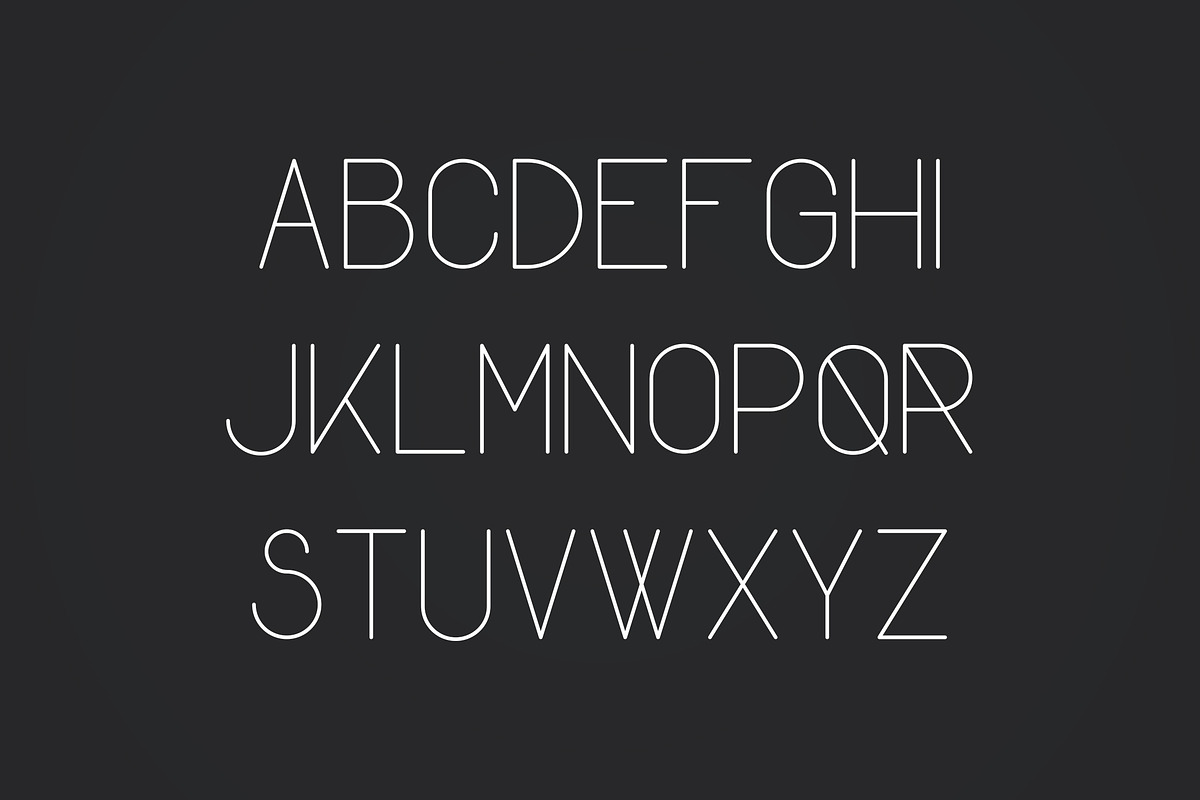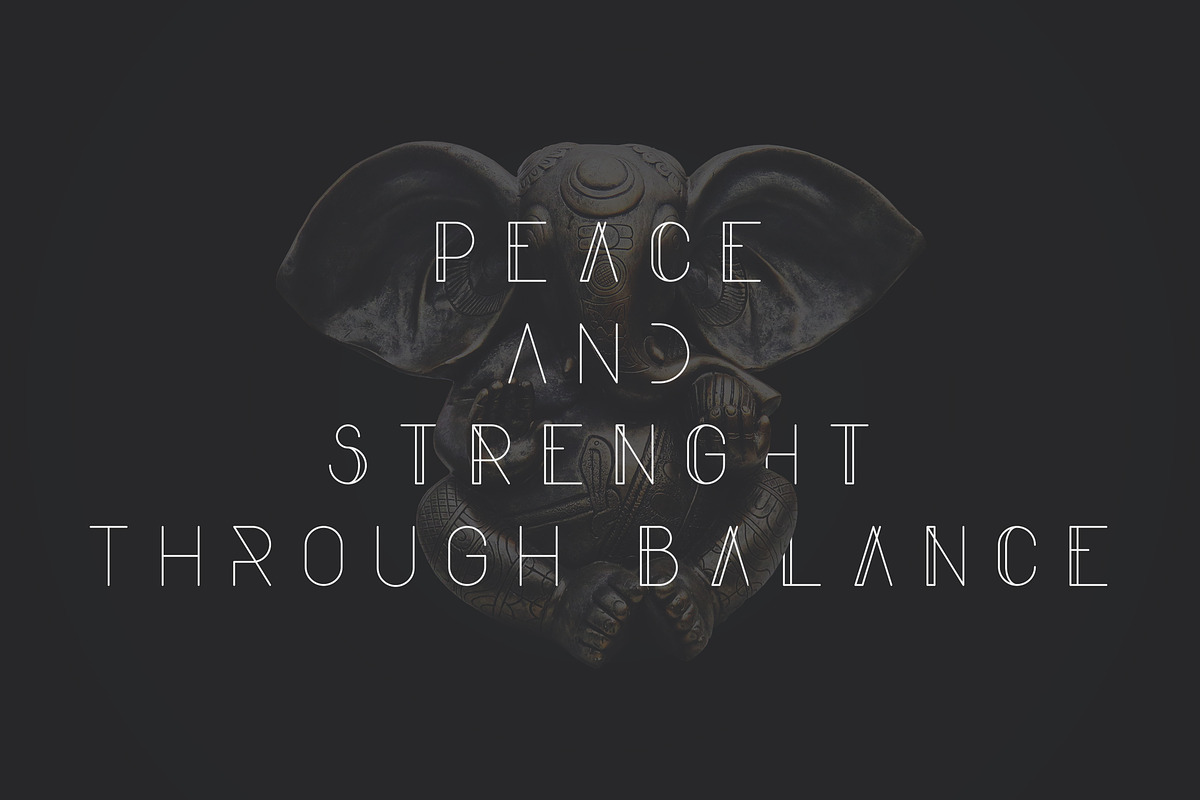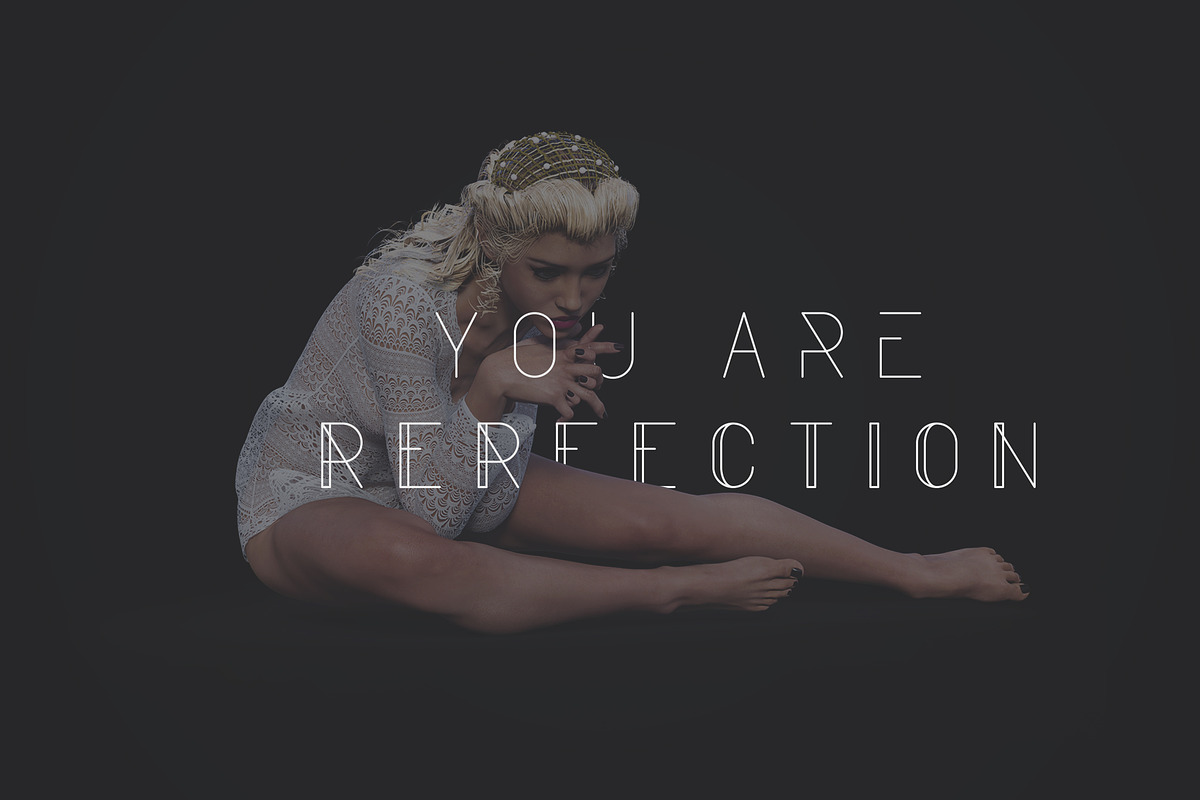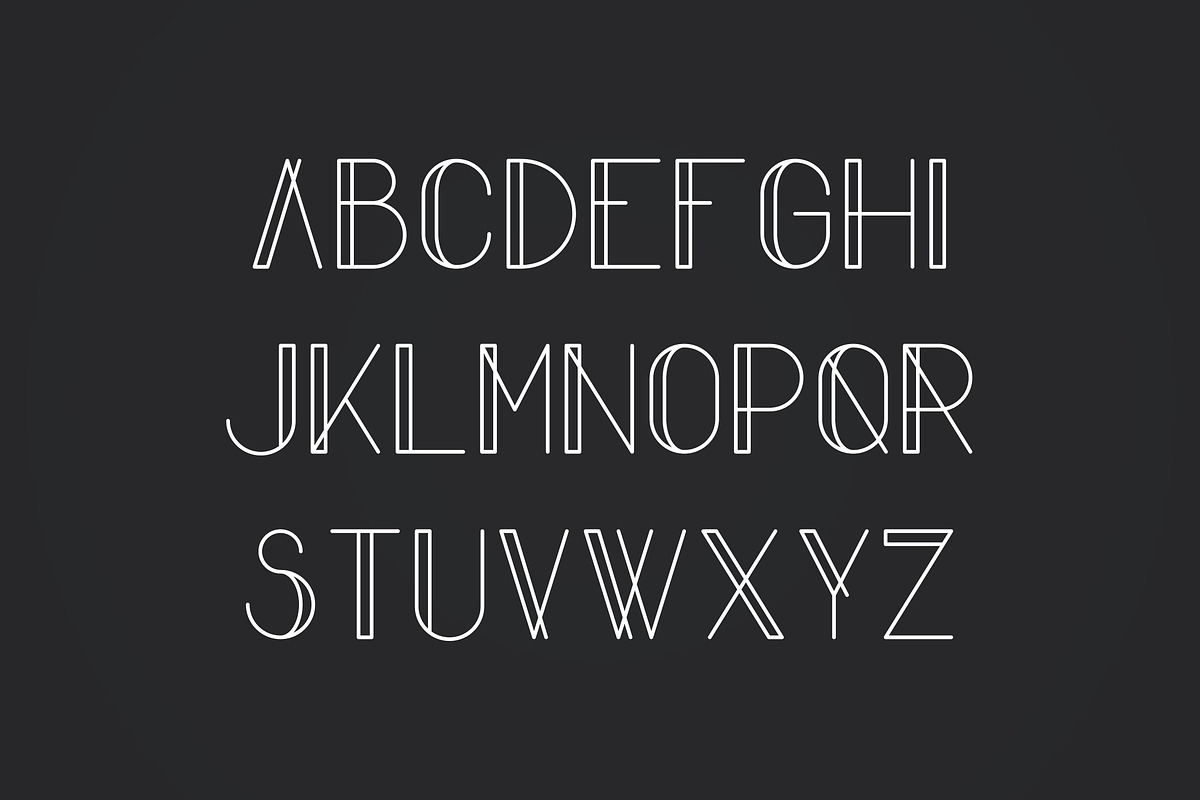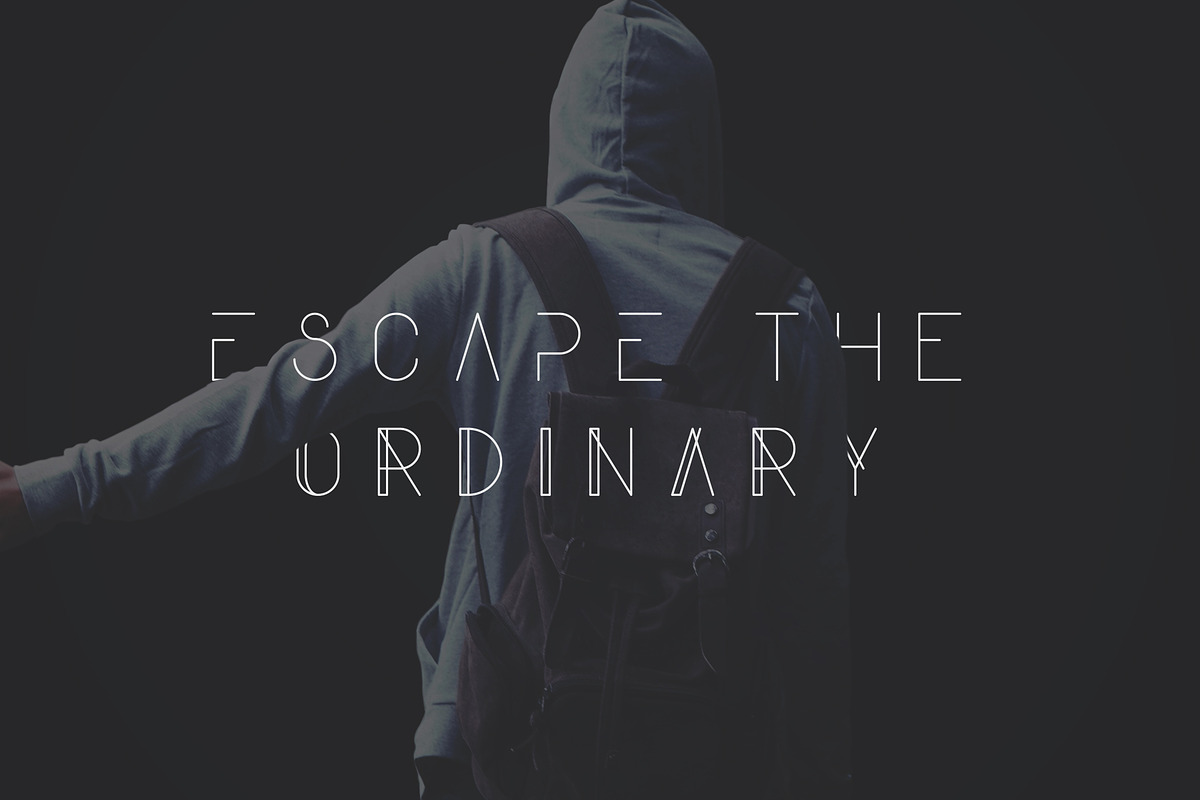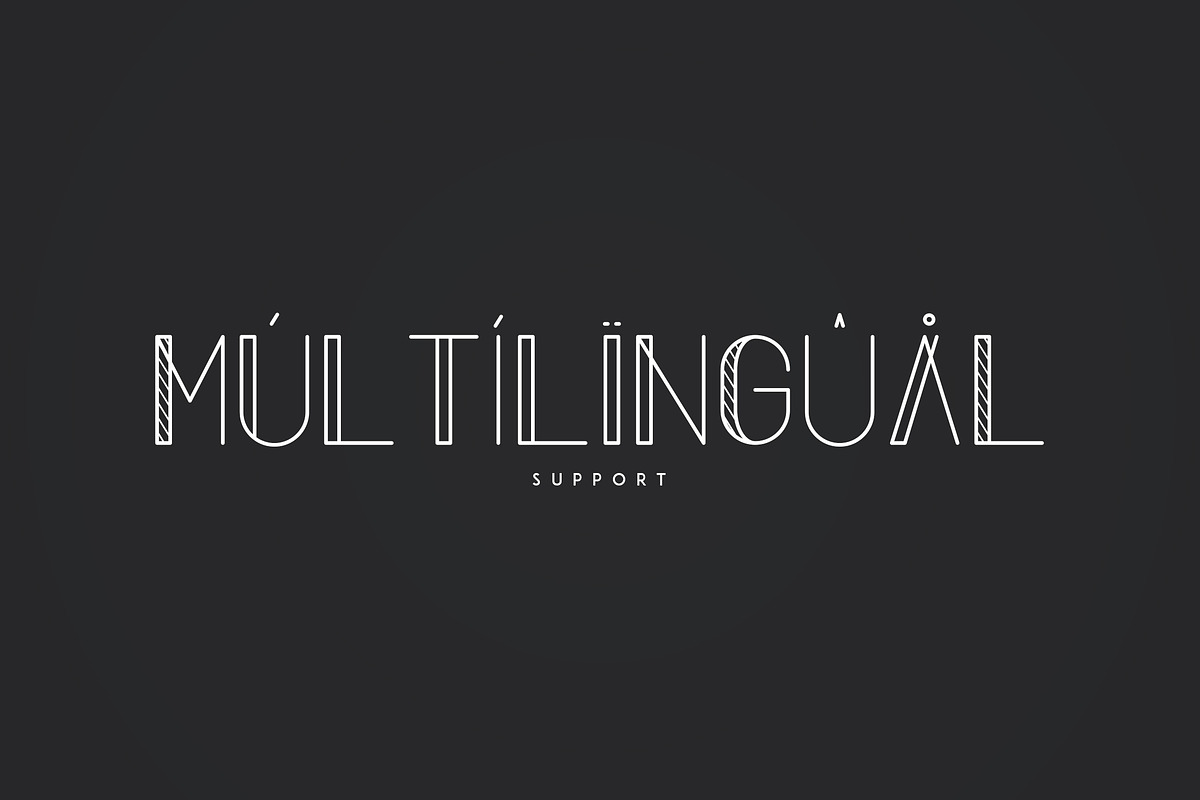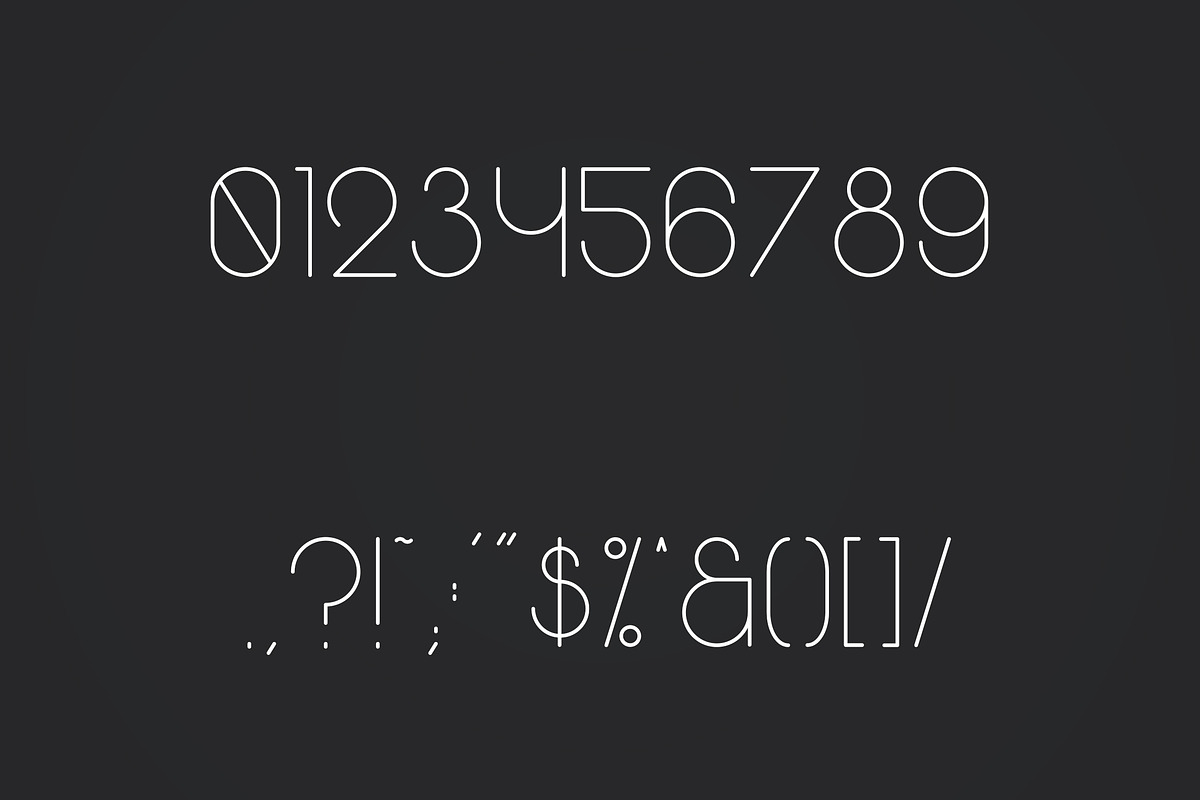
Komorebi is modern display font with 41 alternatives and multilingual support. It's a very versatile font that works great in large and small sizes.
Komorebi is perfect for branding projects, home-ware designs, product packaging, wedding invitations, magazine headers - or simply as a stylish text overlay to any background image.
41 Alternative Glyphs